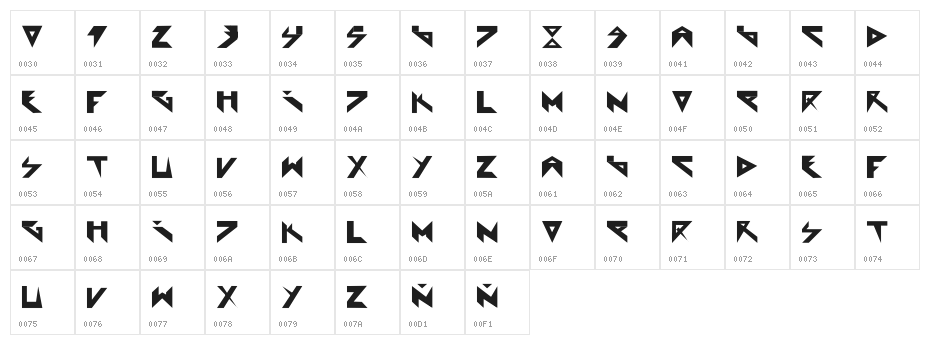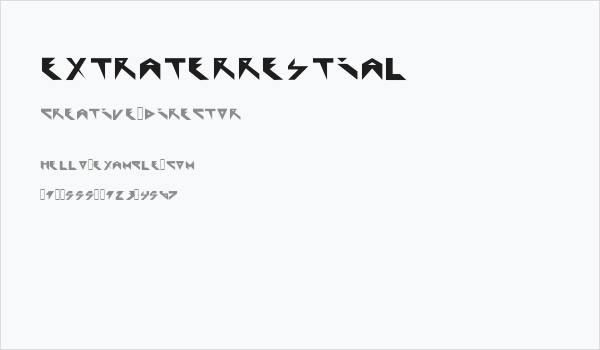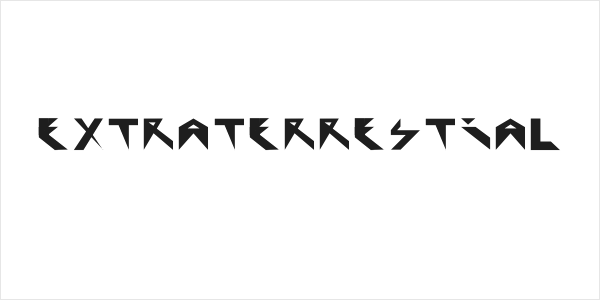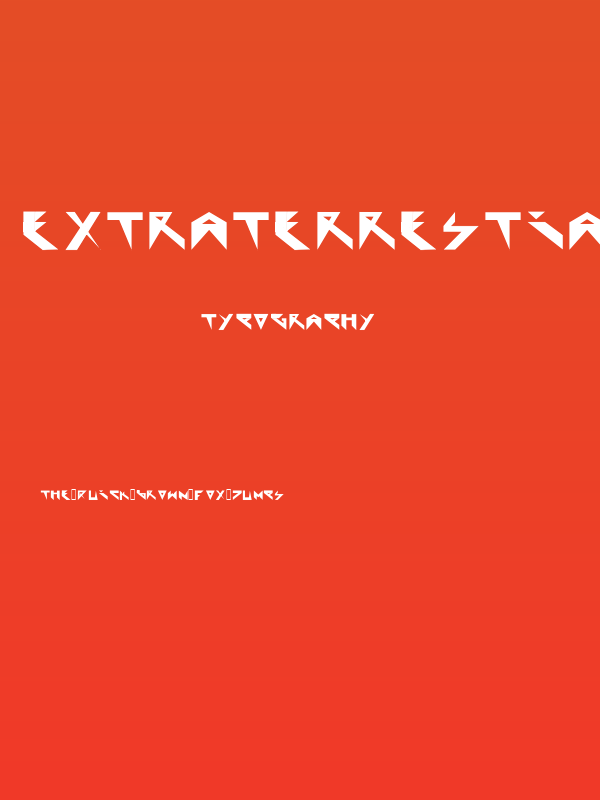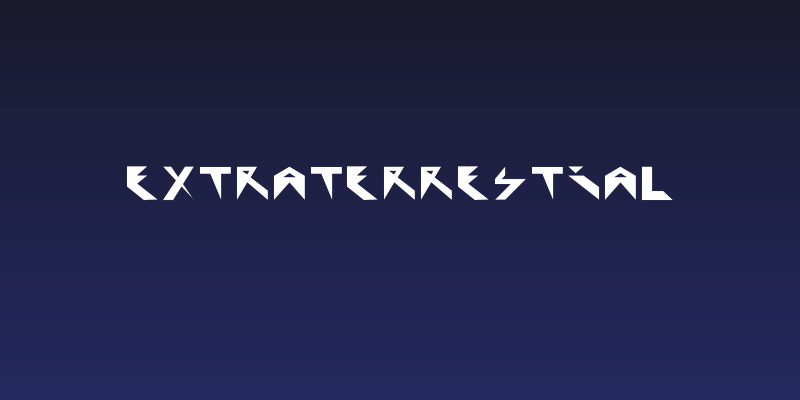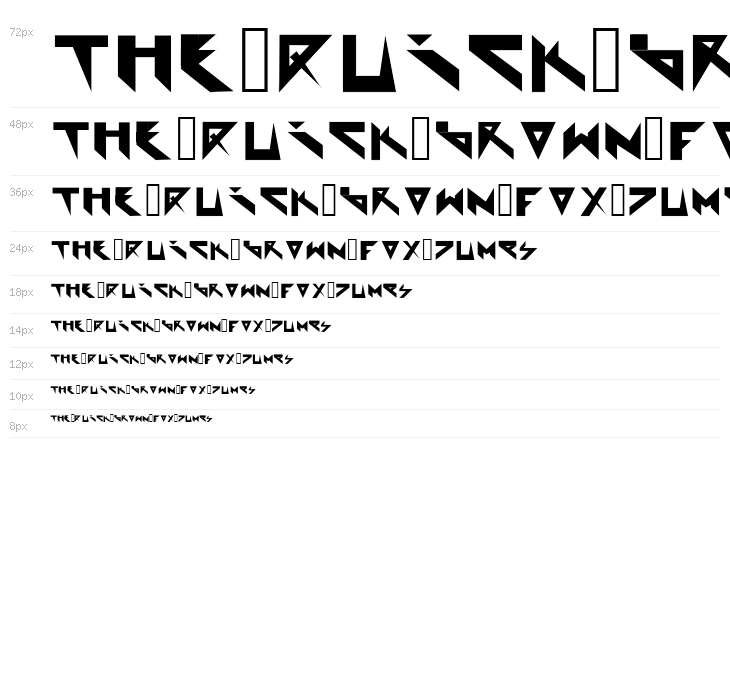
Extraterrestial Font
Extraterrestial Description
This font features a bold, geometric design with sharp angles and a futuristic aesthetic. The characters are constructed with a series of straight lines and triangular shapes, giving them a distinct, edgy appearance. The uppercase and lowercase letters share a similar style, maintaining consistency across the alphabet. Numbers and special characters are designed to match the angular theme, ensuring a cohesive look. The font's unique style makes it ideal for projects that require a modern, sci-fi, or tech-inspired feel. Its boldness and distinctiveness make it stand out, perfect for attention-grabbing designs.
| Proposed Projects | Ideal for sci-fi themed posters, video game titles, tech branding, and futuristic logos. |